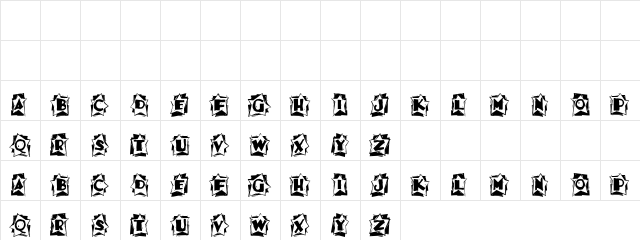
Locked Inside Regular
Design Context for Locked Inside Typeface
Locked Inside is a composed and adaptable typeface that performs quietly and consistently across a wide range of design contexts.